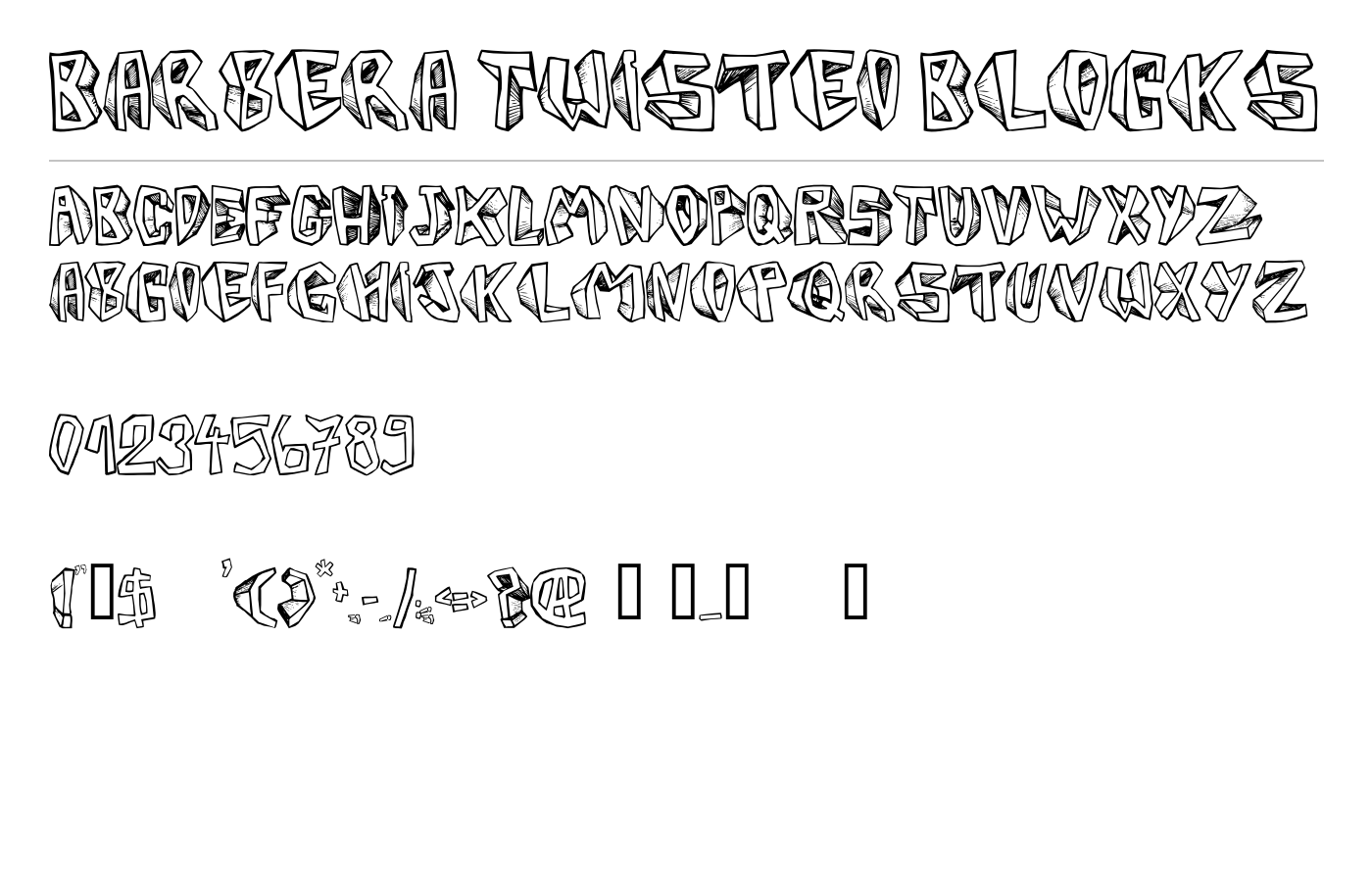
Barbera Twisted Blocks is a playful and bold display font characterized by its hand-drawn, irregular block letterforms that create a sense of movement and energy. Its twisted, sketch-like lines give it a casual, artistic feel, making it perfect for creative projects, posters, and branding that aims to be fun and eye-catching. This font works best in larger sizes where its unique style can stand out without sacrificing readability.
Barbera Twisted Blocks Font
About Barbera Twisted Blocks Font